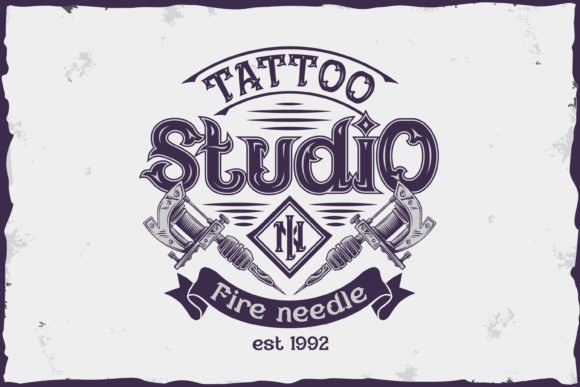
Introducing Fire Needle Font, the ultimate choice for typography logos that demand attention and ignite creativity. Created by the talented team at Fractal Font Factory, this bold and captivating display font is set to revolutionize your design projects.
With its strong and commanding presence, Fire Needle Font grabs the viewer's attention from the very first glance. Its Western-inspired design evokes a sense of adventure, making it the perfect choice for brands that want to stand out from the crowd. Whether you're working on a logo, poster, or website, this font is guaranteed to leave a lasting impression.
Unleash your imagination and dive into the world of Fire Needle Font. Its versatility knows no bounds, allowing you to experiment and create endless variations. From vintage-themed designs to contemporary compositions, this font adapts effortlessly to any aesthetic, making it the go-to choice for designers seeking that perfect balance between elegance and impact.
But Fire Needle Font is not just visually stunning—it also delivers on functionality. Its carefully crafted letterforms ensure legibility, making it an ideal choice for both print and digital media. Whether it's on a billboard or a small business card, your message will shine through with clarity and style.
Experience the thrill of using Fire Needle Font and watch your designs come to life. Its emotional appeal and captivating energy will captivate your audience, leaving them eager to explore more. With its abundance of character and charm, this font is more than just a tool—it's a source of inspiration.
Don't settle for ordinary when you can have extraordinary. Elevate your designs with Fire Needle Font and witness the power of captivating typography. Unlock your creative potential and leave a lasting impression with this exquisite font that is sure to set your work apart from the rest.